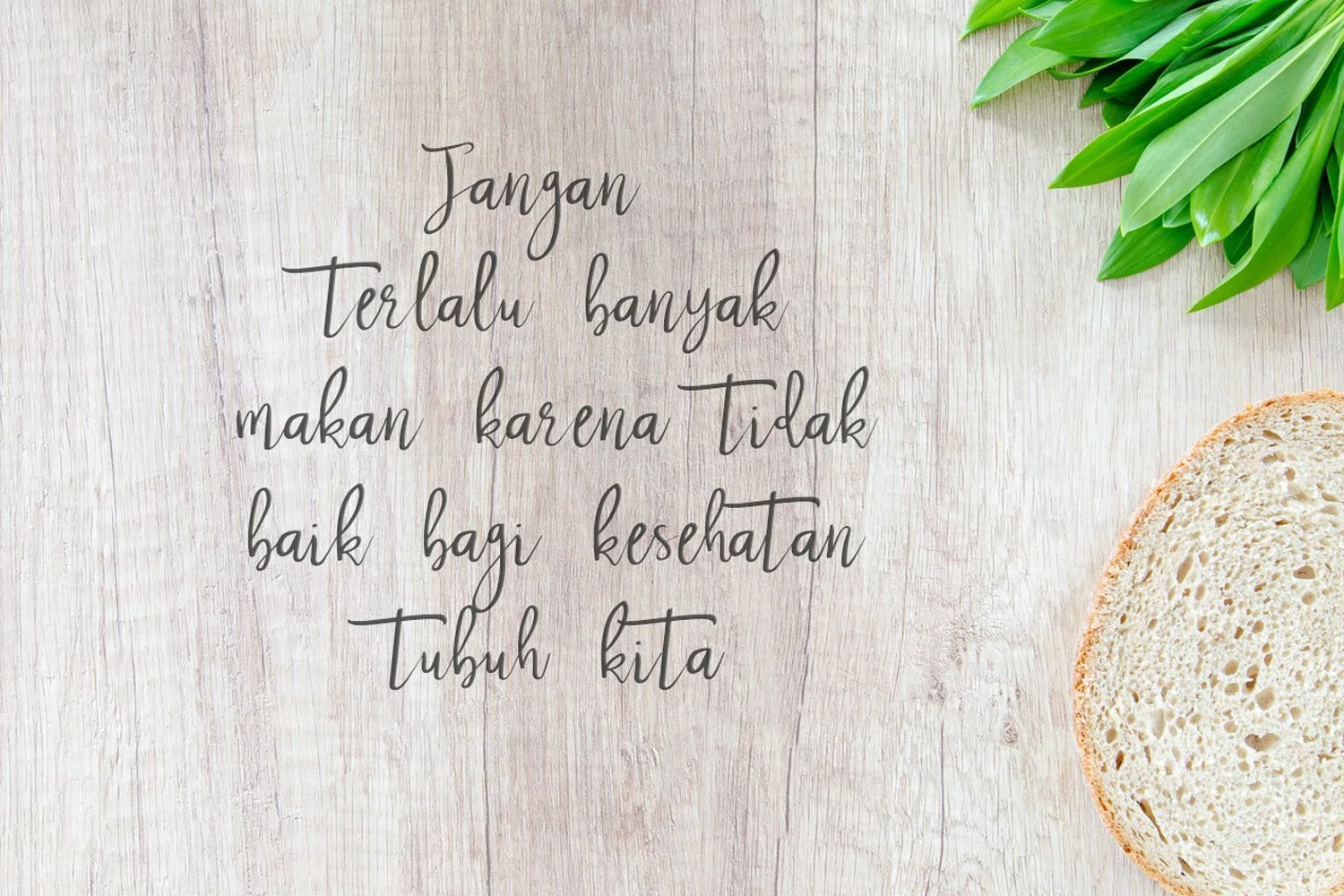
Nastar Script + Swash Introducing Nastar Script + Swash - A Clean script and unique character! it's perfect for logos, name card, magazine layouts, invitations, headers, or even large-scale artwork. What you get dear! You wil get: 1. Nastar Script - A clean, script font including upper & lowercase characters, numerals and more of symbols. 2. Nastar Script Alt - This is a second version of Nastar, with a completely new set of upper & lowercase characters. 3. Nastar Swash - This includes 24 elements for cute style. Thans you, Have a nice day darling :D